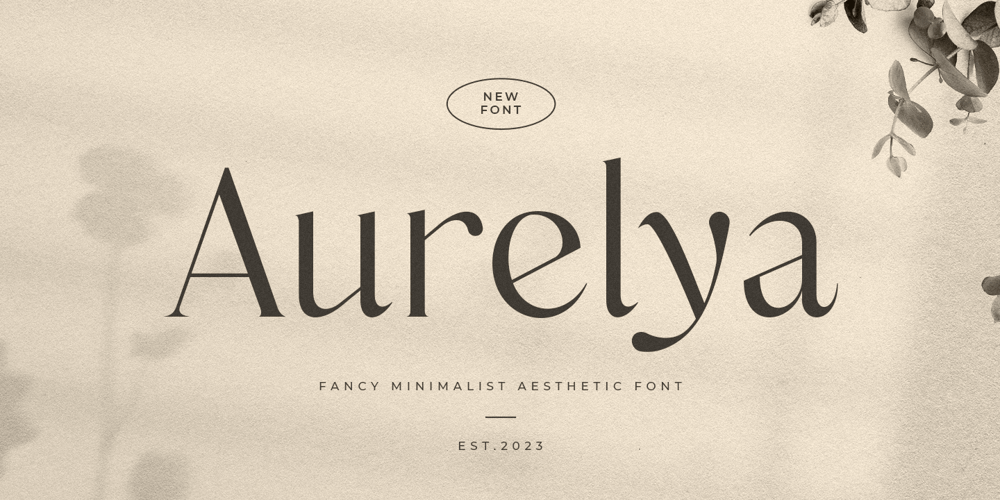
Aurelya Font Family was designed by Zamroni Hamzah and published by Sensatype Studio. Aurelya contains 1 styles and family package options. Aurelya Fancy Minimalist Aesthetic Font is a well-balanced contemporary font with a Minimalist Aesthetic font for Minimalist, and luxury branding needs, with Fancy stylish touch, font that you can combine to get any variations and unique shapes easily just in seconds with choose variations of them. It is a serif display font with moderate contrast that perfect for branding projects, logo, wedding designs, social media posts, advertisements, product packaging, product designs, label, photography, watermark, invitation, stationery, and any projects, it makes with a high level of legibility.What’s Included: Aurelya font Character set A-Z Numerals & Punctuation Accented Characters (West Europe) Works on PC & Mac Recommended using Adobe Illustrator or Adobe Photoshop. Wish you enjoy our font. ๐